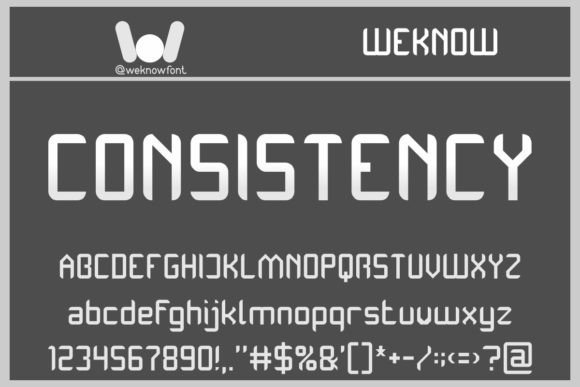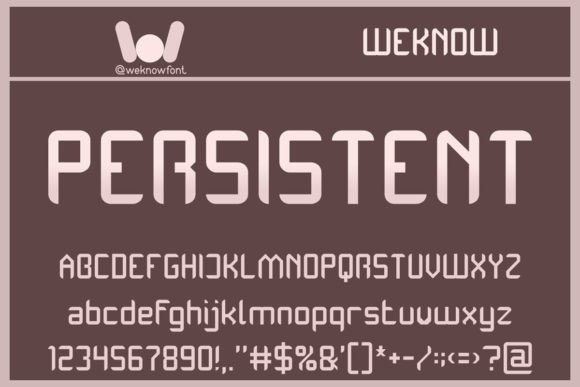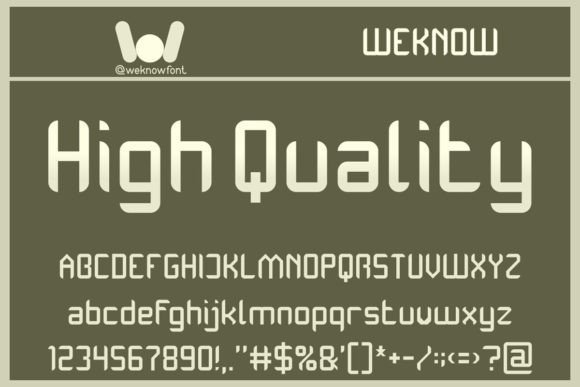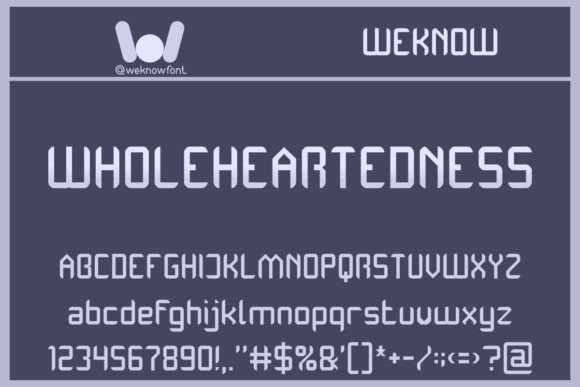
Introducing Fortune Font: Elevate Your Designs with a Cool and Unique Display Font
Are you tired of using the same old fonts in your designs? Do you want to add a touch of uniqueness and personality to your creations? Look no further than Fortune Font, a cool and unique display font that’s sure to elevate your font library. In this article, we’ll dive into the features and benefits of Fortune Font, and explore how it can help you take your designs to the next level.
What is Fortune Font?
Fortune Font is a stylish and modern display font that’s perfect for designers, crafters, and anyone looking to add a touch of sophistication to their work. With its unique and eye-catching design, Fortune Font is sure to grab attention and make your creations stand out from the crowd. Whether you’re working on a logo, branding project, or simply want to add some flair to your social media graphics, Fortune Font is the perfect choice.
Key Features of Fortune Font
- Unique and Cool Design: Fortune Font boasts a one-of-a-kind design that’s sure to turn heads. Its modern and stylish aesthetic makes it perfect for a wide range of design projects.
- High-Quality Vector Graphics: Fortune Font is built with high-quality vector graphics, ensuring that it looks crisp and clear even at large sizes.
- Easy to Read: Despite its unique design, Fortune Font is easy to read and understand, making it perfect for use in a variety of contexts.
- Versatile: Fortune Font can be used for a wide range of design projects, from logos and branding to social media graphics and more.
Benefits of Using Fortune Font
So why should you choose Fortune Font for your design projects? Here are just a few benefits of using this amazing font:
- Adds Personality to Your Designs: Fortune Font is a great way to add some personality and flair to your designs. Its unique design ensures that your creations will stand out from the crowd.
- Elevates Your Brand: If you’re looking to elevate your brand and make it more professional, Fortune Font is a great choice. Its modern and stylish design is sure to make a great impression.
- Saves Time: With Fortune Font, you can create professional-looking designs in no time. Its easy-to-read design and high-quality vector graphics make it easy to get started.
- Experiment with Different Sizes: Fortune Font looks great at a variety of sizes, so don’t be afraid to experiment and find the perfect size for your design.
- Pair it with Other Fonts: Fortune Font pairs well with a variety of other fonts, so try combining it with other fonts to create a unique and interesting design.
- Use it for Headings and Titles: Fortune Font is perfect for use in headings and titles, where its unique design can really make an impact.
In conclusion, Fortune Font is a cool and unique display font that’s sure to elevate your font library. With its modern and stylish design, high-quality vector graphics, and easy-to-read design, Fortune Font is perfect for a wide range of design projects. Whether you’re a designer, crafter, or simply looking to add some flair to your social media graphics, Fortune Font is a great choice. So why wait? Download Fortune Font today and start taking your designs to the next level!